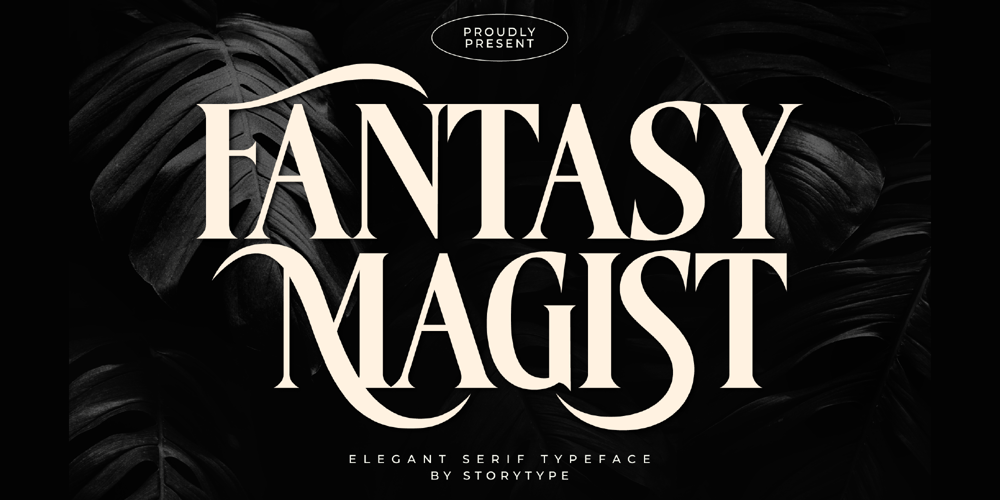
Fantasy Magist Font Family was designed by Heru Utama Putra and published by Letterena Studios. Fantasy Magist contains 2 styles and family package options. Fantasy Magist is a modern and stylish serif font. Fall in love with its incredibly versatile style and use it to create gorgeous wedding invitations, beautiful stationary art, eye-catching social media posts, and much more! This font is PUA encoded which means you can access all glyphs and ligatures with ease!